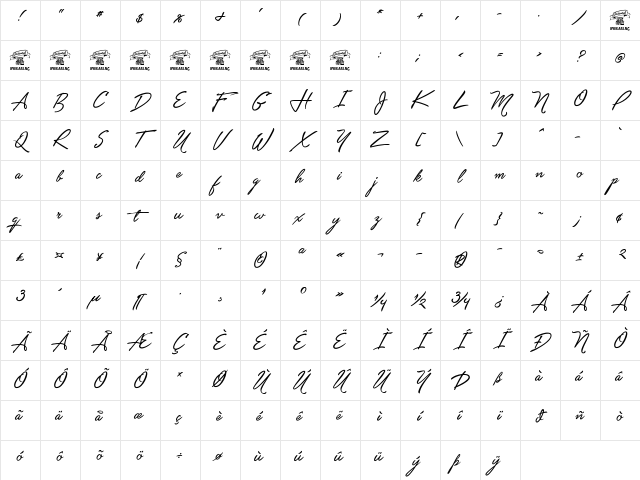
Unthrift Second Personal Regular Free Font
Unthrift Second Personal Regular
Foundry: M￿ Greb￿
Designer: M￿ Greb￿
Design Context for Unthrift Second Personal
Unthrift Second Personal is a composed and adaptable typeface that performs quietly and consistently across a wide range of design contexts. Its narrow stance lets it pack a punch even in space-constrained designs.
Who designed the Unthrift Second Personal Regular font?
This font was published by M Greb. Check the technical specs section for copyright and designer details.